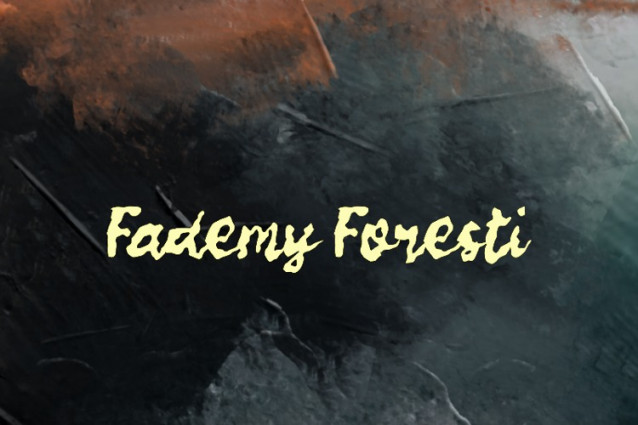
Vademy Forest Font
Vademy Forest Font, perfectly fit for branding, logo, wedding things, greeting cards, fashion, lookbook, marketing promotion, anytime you want to look fancy elegant but still casual.